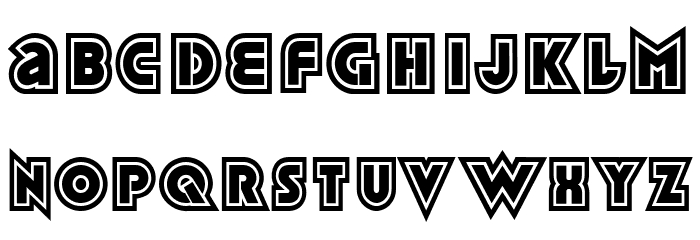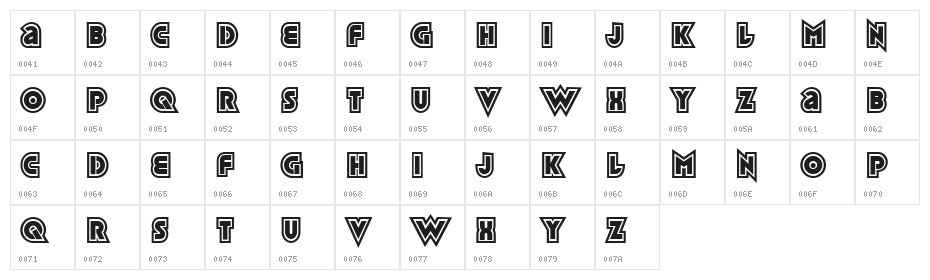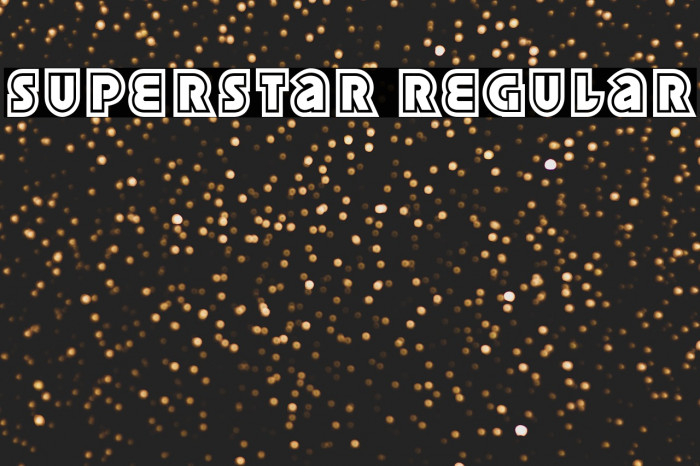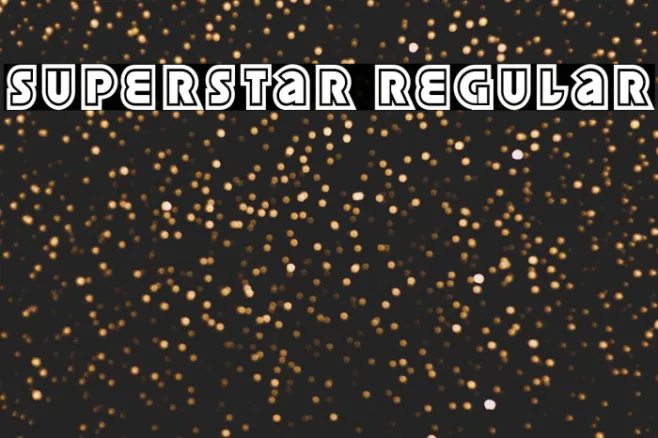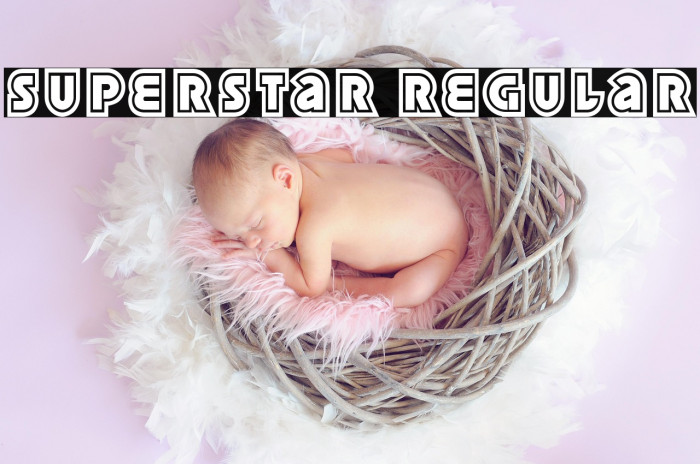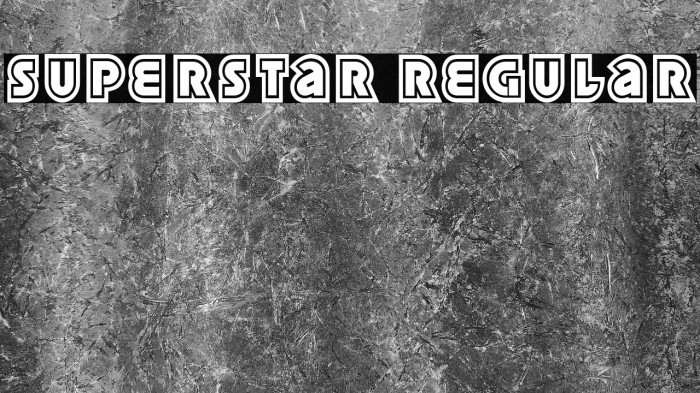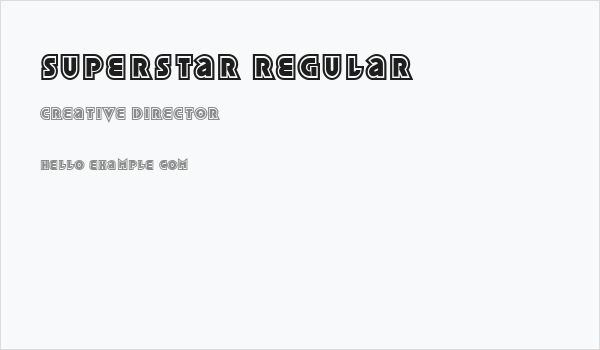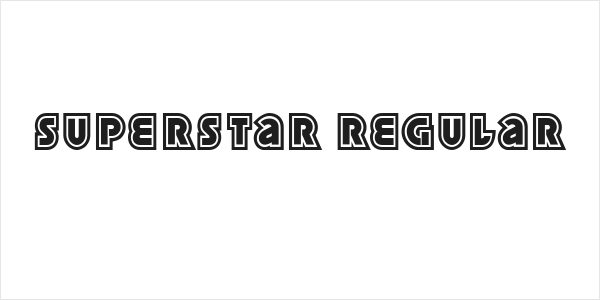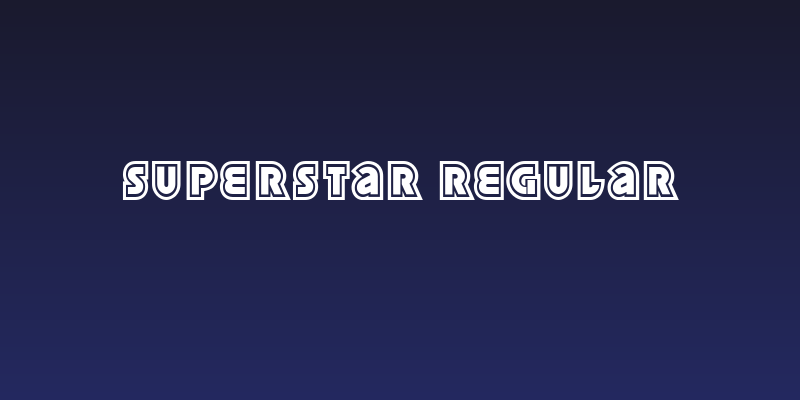
Superstar Regular Font
Superstar Regular Description
This font features a bold, geometric design with a strong emphasis on angular shapes and sharp edges. Each character is outlined, creating a striking contrast between the filled and unfilled spaces. The uppercase letters exhibit a sense of movement and energy, with unique cutouts and lines that add a dynamic flair. The lowercase letters maintain the same geometric style, ensuring consistency throughout the typeface. The numbers and special characters follow suit, offering a cohesive look that is both modern and eye-catching. This font is ideal for projects that require a bold statement and a contemporary aesthetic.